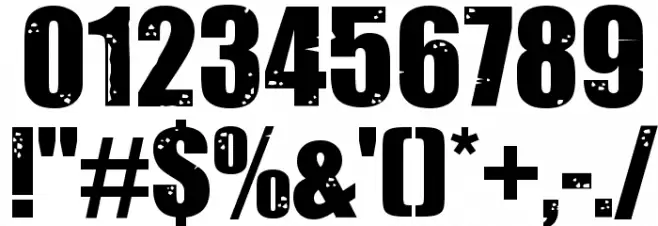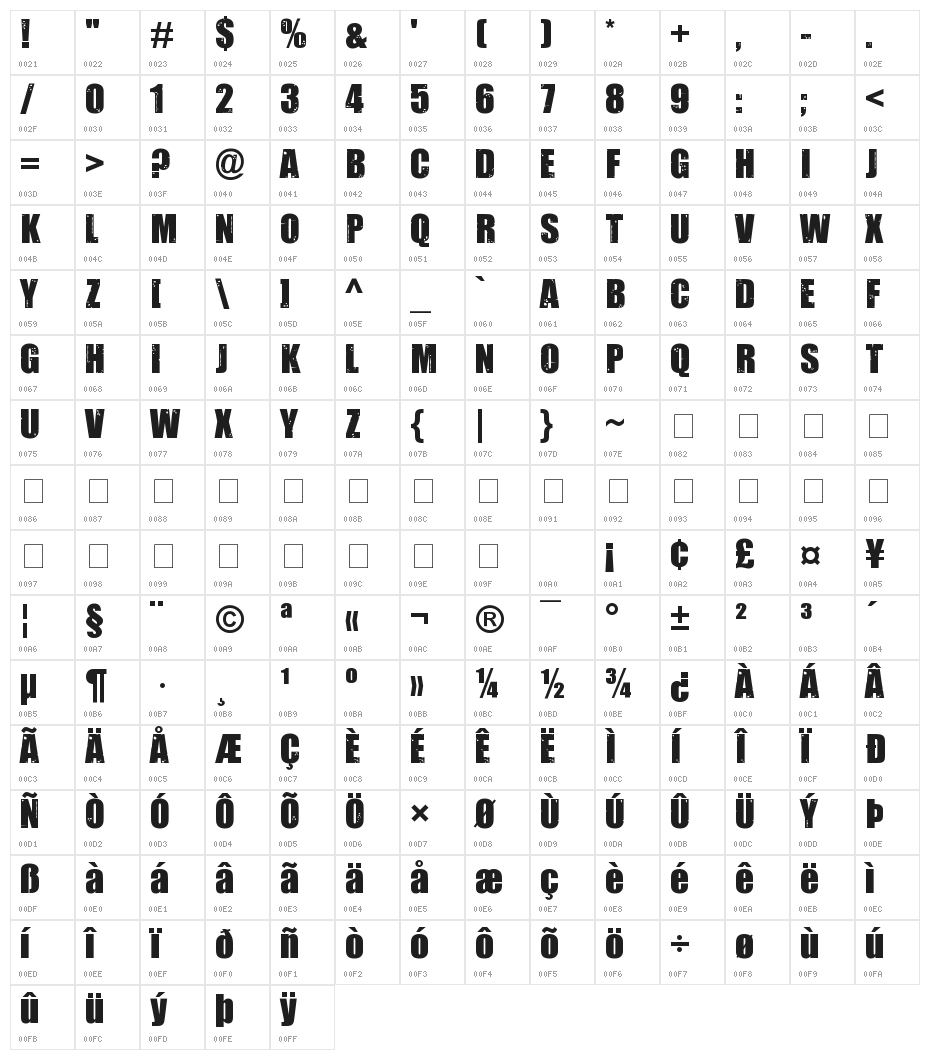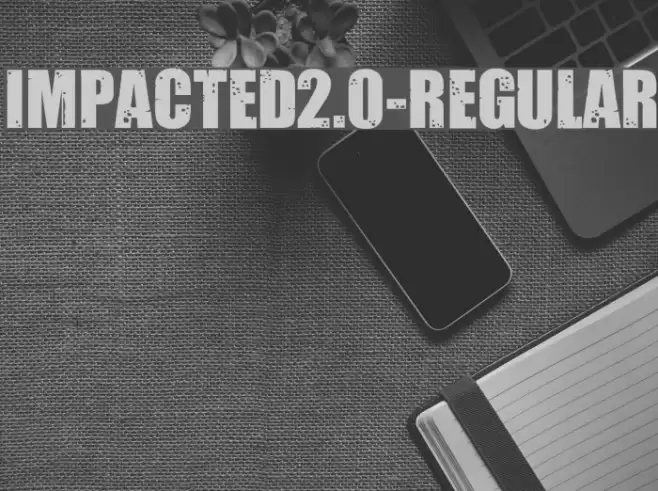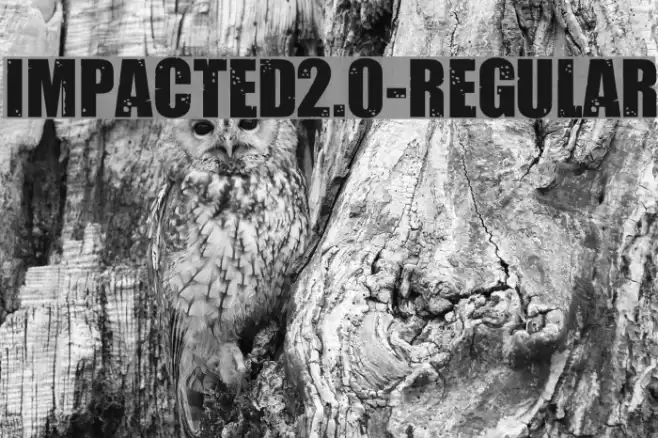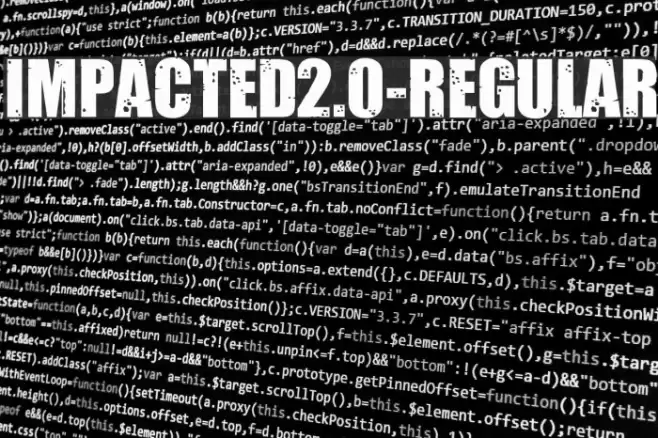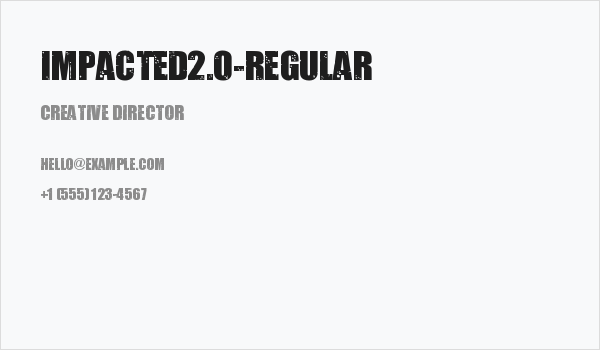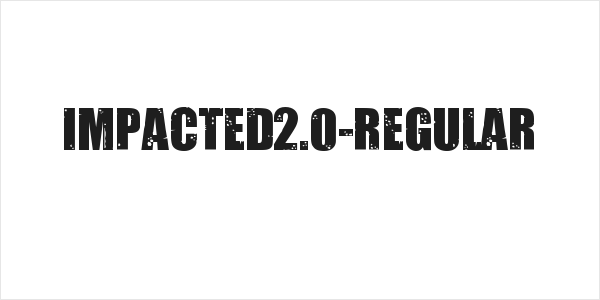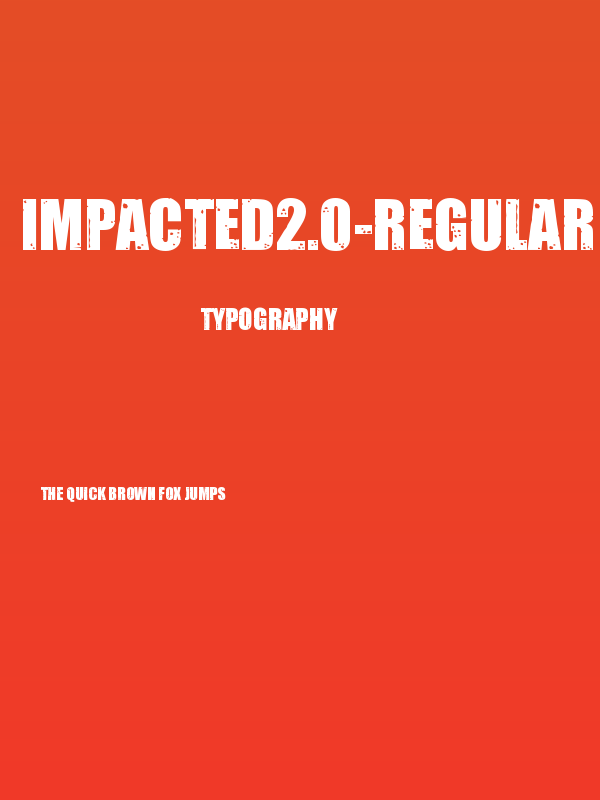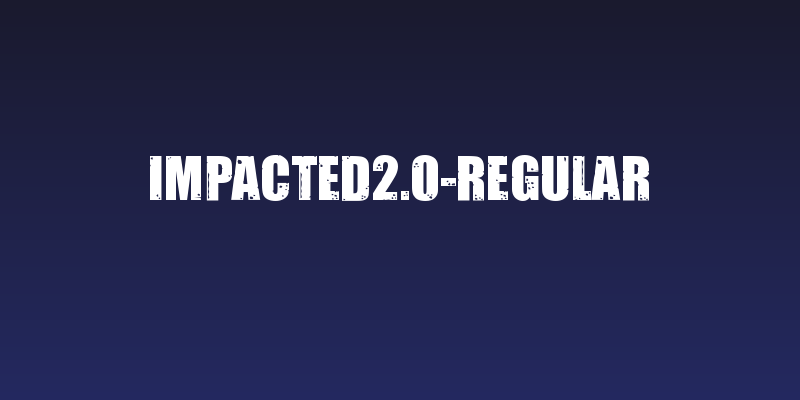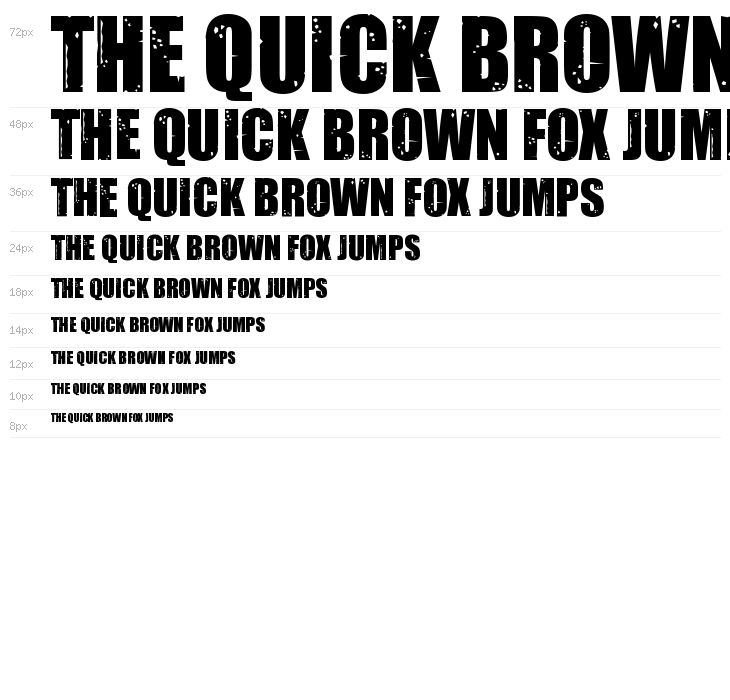
Impacted2.0-Regular Font
Impacted2.0-Regular Description
This font features a bold, distressed style with a strong, impactful presence. The characters are uniformly bold with a textured, worn-out appearance that adds a rugged, vintage feel. The uppercase and lowercase letters maintain a consistent weight, while the numbers and special characters follow the same stylistic approach. The font's design is reminiscent of industrial or grunge aesthetics, making it suitable for projects that require a bold statement. Its distressed look is achieved through irregular edges and a slightly eroded texture, giving it a unique character.
| Proposed Projects | Ideal for posters, album covers, branding, and any design needing a bold, vintage touch. |